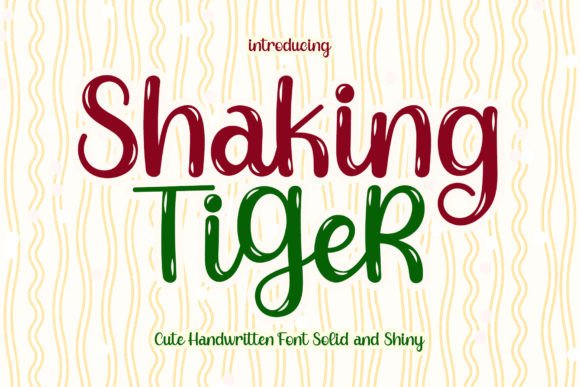
Introducing the Shaking Tiger Font - A Symphony of Romance and Delight
Embrace the enchantment of Shaking Tiger, a script font that dances across your designs with an air of playful elegance. Its handwritten charm weaves a tale of romance and joy, effortlessly transforming your creative visions into captivating works of art.
Step into a world of whimsical strokes and sweeping curves, where each letter dances and twirls with a vibrant life of its own. Shaking Tiger is not just a font; it's a playful companion that adds a dash of delight to every project. Its warm and jolly demeanor radiates positivity, making it the perfect choice for designs that aim to uplift and inspire.
With Shaking Tiger, your words take on a new level of charm and personality. Love letters, wedding invitations, greeting cards, and social media posts come alive with a touch of whimsy and heartfelt emotion. Its versatility extends to branding, packaging, and even web design, adding a unique and eye-catching element that sets your creations apart.
Immerse yourself in the endless variations of Shaking Tiger. Experiment with different sizes, colors, and combinations to discover a world of creative possibilities. Layer it with other elements, let it flow freely, or let it take center stage - the possibilities are boundless.
Shaking Tiger is more than just a font; it's an experience. It's a gateway to a world where imagination reigns supreme and creativity knows no limits. So, embark on this whimsical journey with Shaking Tiger, and let your designs dance with joy and enchantment.